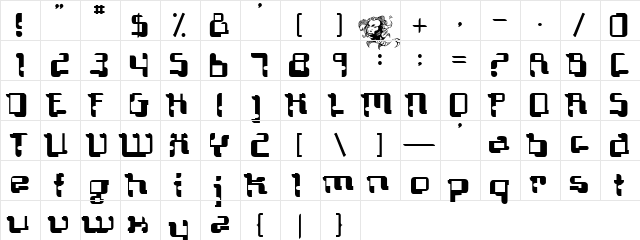
Technocrat Normal
Design Context for Technocrat Typeface
Technocrat has a distinctly futuristic character, with geometric precision and clean angles that feel at home in technology, gaming, and sci-fi contexts.
Pro Tip: Use Technocrat in combination with a neutral sans for body text. Let it define the brand voice in headlines while keeping reading comfortable elsewhere.